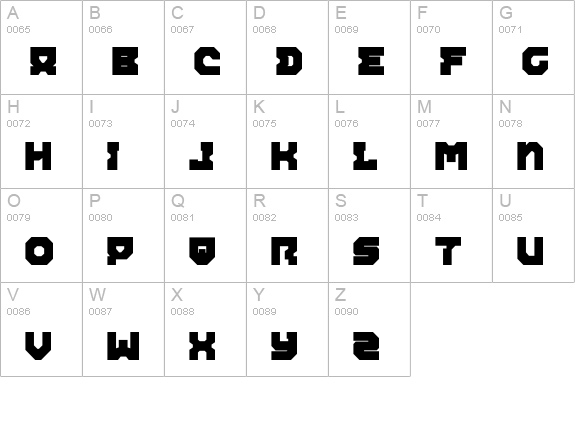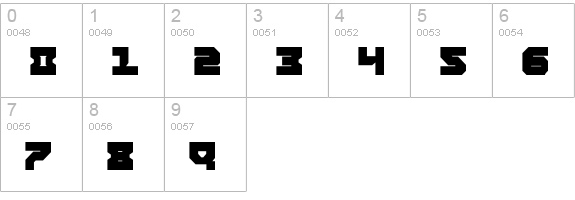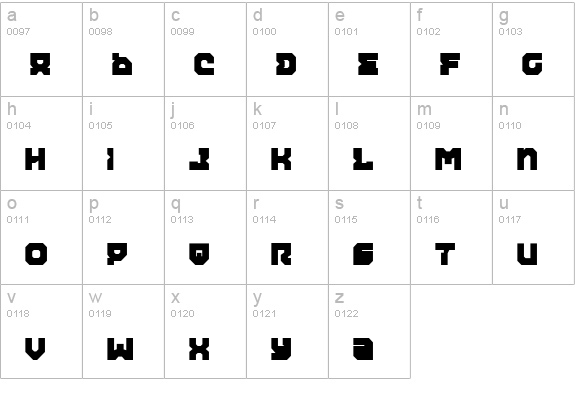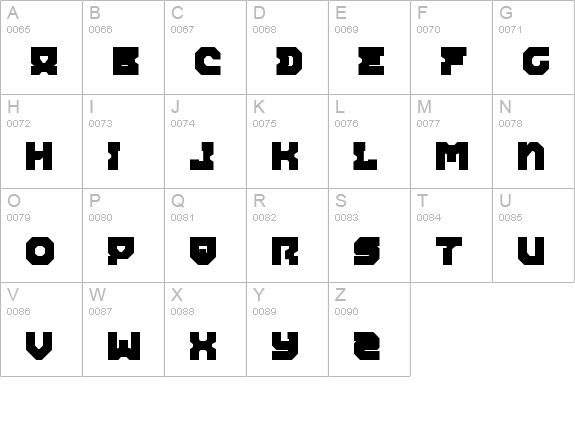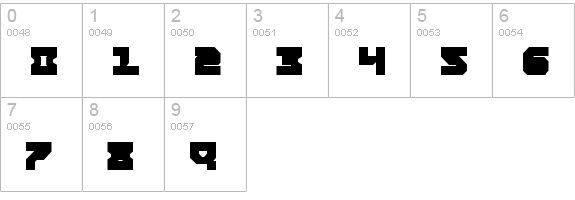
Airacobra Extra Bold is a strong, high-contrast variant in the Airacobra typeface family \xE2\x80\x94 well suited to headlines, attention-grabbing titles, and strong calls-to-action.
Airacobra Extra Bold is a striking and powerful display font that commands attention with its bold and distinctive letterforms. This font exudes a sense of strength and confidence, making it perfect for headlines, posters, logos, and other design projects that require a bold statement. The thick, heavy strokes of Airacobra Extra Bold give it a modern and impactful look that is sure to make a lasting impression. What sets Airacobra Extra Bold apart is not only its bold design but also the fact that it is available for free download at FontsMarket.com. This means that you can easily access this impressive font and use it in your projects without any cost. Whether you're a professional designer looking for a bold and eye-catching font or a hobbyist seeking to add some flair to your creations, Airacobra Extra Bold is a fantastic choice that won't break the bank. Download it now and unleash the power of this striking typeface in your designs.